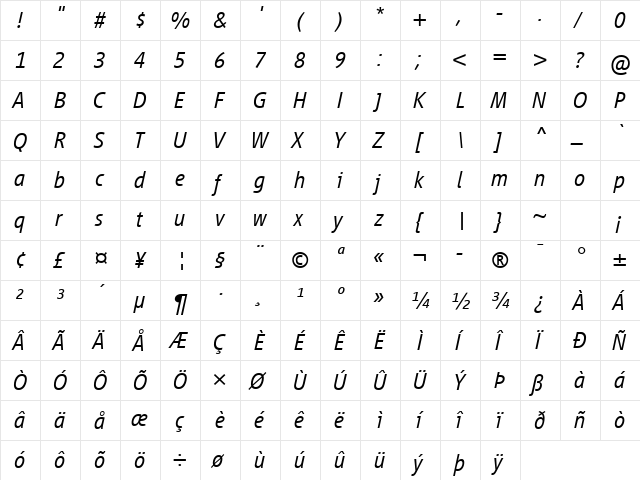
Vialog LT Com Light Italic
| Foundry | Linotype GmbH |
| Designer | Werner Schneider |
Design Context for Vialog LT Com Typeface
Vialog LT Com is a composed and adaptable typeface that performs quietly and consistently across a wide range of design contexts. Its italic angle brings a sense of urgency and motion to the letterforms. Its slender proportions lend an understated elegance to any composition.
Pro Tip: Use Vialog LT Com for emphasis, pull quotes, and subheadings where its slanted energy can add rhythm to the layout.